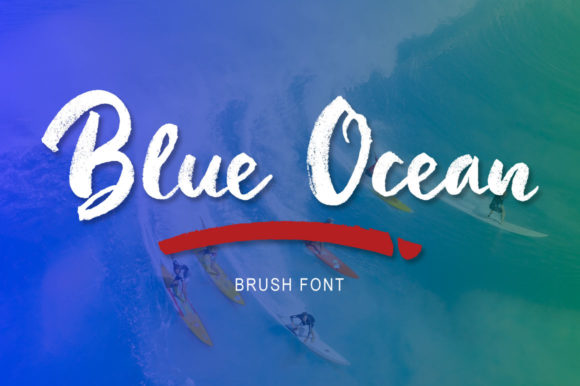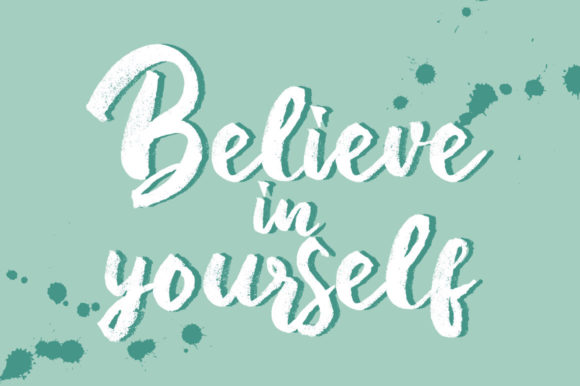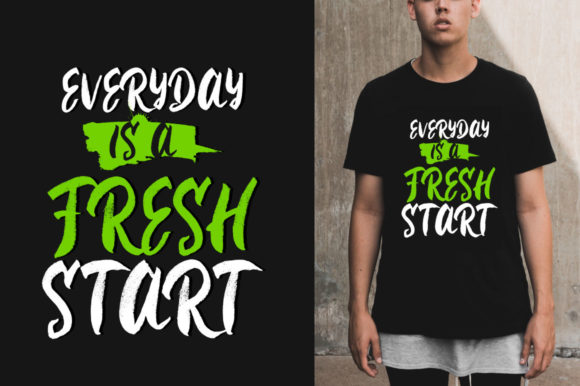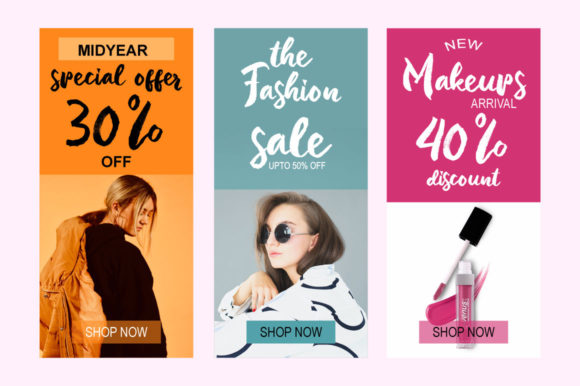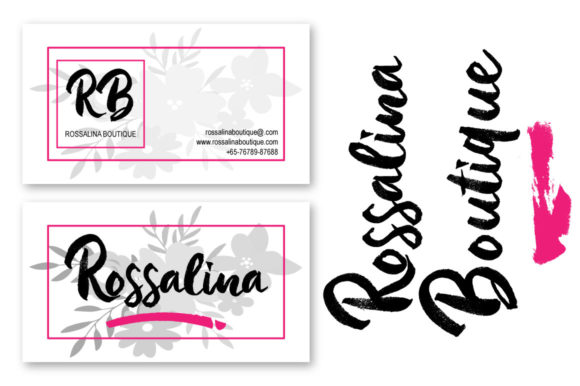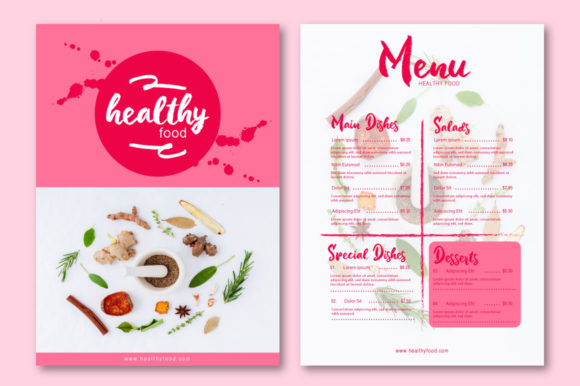
Blue Ocean Font
About Blue Ocean Font
Blue Ocean is a sweet and cursive brushed handwritten font. This gentle font will look gorgeous on a variety of design ideas. It will add a joyful and romantic touch to each of your projects!